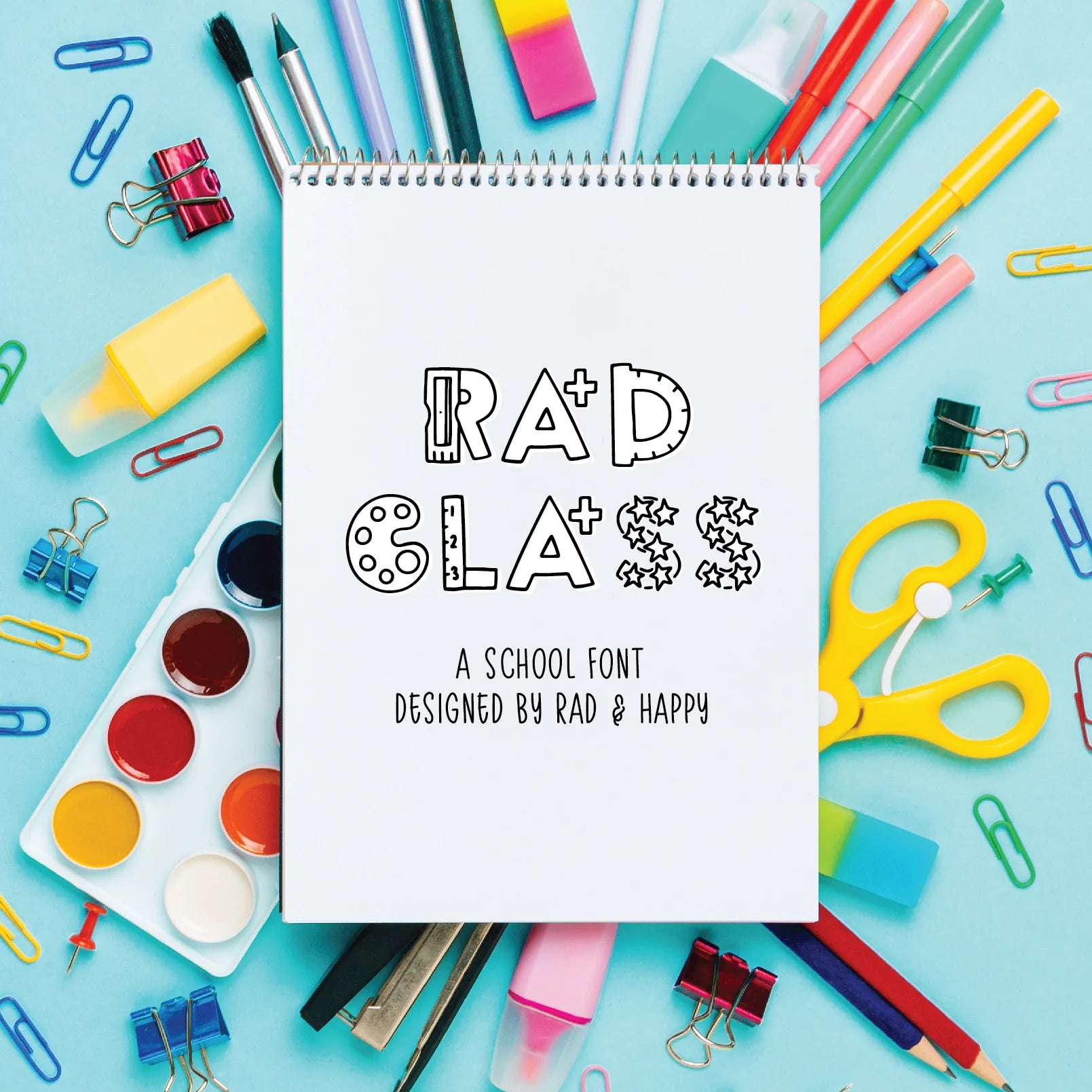
Spruce Up Your Classroom Teacher-Focused Fonts!
Hey there educator friends! 🍎 Have you ever felt like your classroom documents are stuck in a bit of a font rut? I mean, there are tons of fonts out there, but it feels like there's a shortage of truly fun, teacher-focused ones that can really jazz up your lesson plans, worksheets, and bulletin boards. Well, fret not! I'm here to bring some much-needed love to your font library. Get ready to make your classroom materials as lively and engaging as your teaching! 🎨✨ Introducing my 'Rad Class' font. If you were looking for a fun, vibrant, and dynamic touch to your teaching resources, you've come to the right place!
The font for teachers
Rad Class oozes enthusiasm, practically begging to be the headline in your next student project, or the eye-catching feature on your classroom door. Rad Class is for all things classroom! Perfect for back to school lunch box notes, classrooms, personalized bookmarks, coloring pages, you name it
An image of the rad class font character set, on a yellow background with colored pencils and other teaching supplies surrounding it
The Art of Implementing the Rad Class Font
I won't leave you high and dry with just the font name. Here are some exciting, practical ways to infuse the Rad Class font into your daily teaching repertoire.
1. Engaging Posters
The classroom walls are your canvas. Create motivational, education-driven posters with Rad Class that will not only get the message across but will also do it in a way that captivates your students. Think visually stimulating topic guides, thumping event announcements, or a digital citizenship manifesto—it's the font that will seize attention and not let go.
2. Eye-Catching Handouts
Making learning materials fun is half the battle won. Construct worksheets and handouts that are fun and unique. Using Rad Class, you can emphasize titles and key points while maintaining a harmonious look that complements any lesson, regardless of subject matter.
3. Lunchbox notes
Rad Class is perfect for adding a little bit of happy to kids' days by leaving encouraging notes on lunch boxes, desks, or anywhere.
4. Interactive Word Walls
What’s a classroom without a word wall? Jazz up this vital learning area with the Rad Class font. Visible vocabulary is key in language development and content retention. The bold and playful strokes of this font will make the wall pop with educational energy.
5. Superb Signage
Every corner in your classroom has a unique function, and it deserves a sign that stands out. From book nooks to technology corners, the signage should be clear, fun, and representative of the spirit of the zone. The Rad Class font is perfect for such application. It will give each learning corner its own identity while maintaining a cohesive classroom feel.
Ready to take your classroom from meh to 'Oh wow!'? The Rad Class font is here to add some zip to your educational materials. It's time to make learning an experience that your students will remember and cherish. Incorporate the Rad Class font, and together we’ll transform the mundane into the marvelous, one letter at a time!